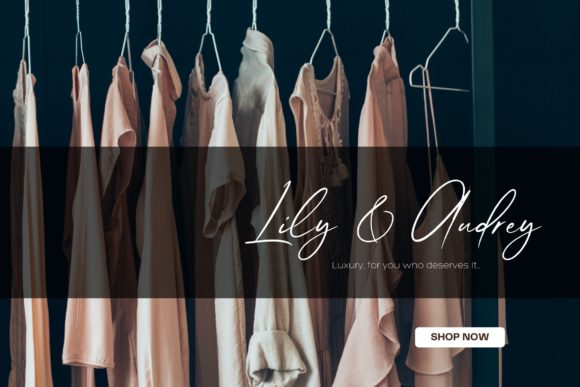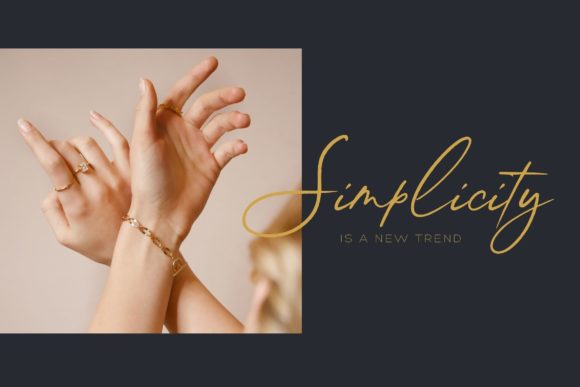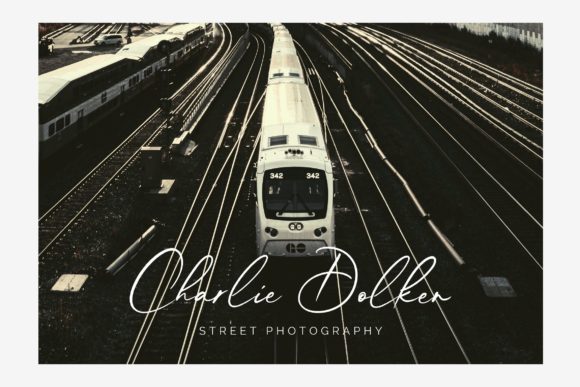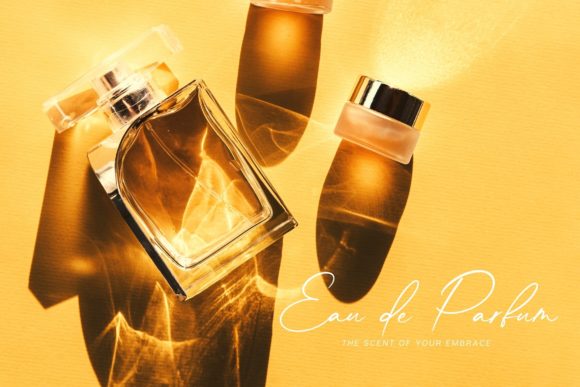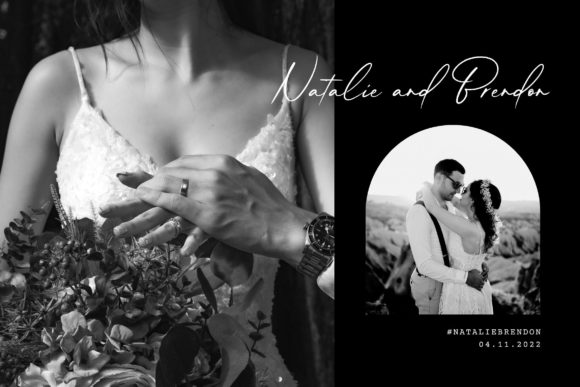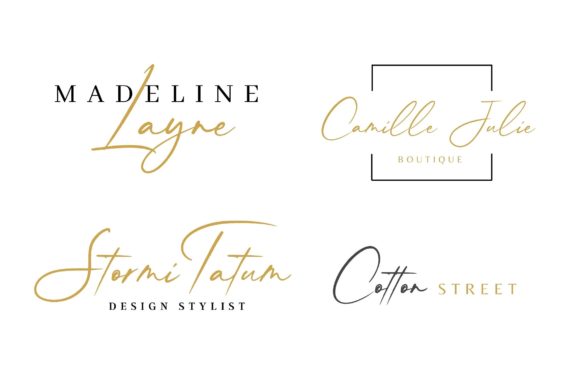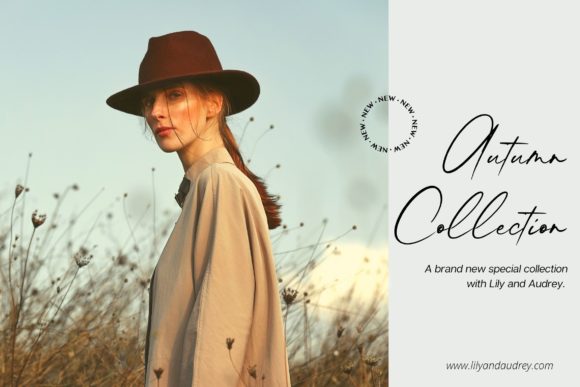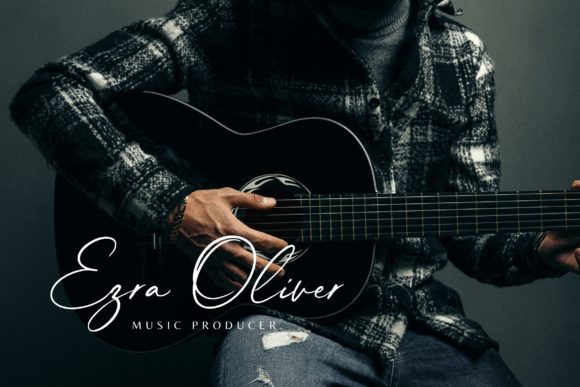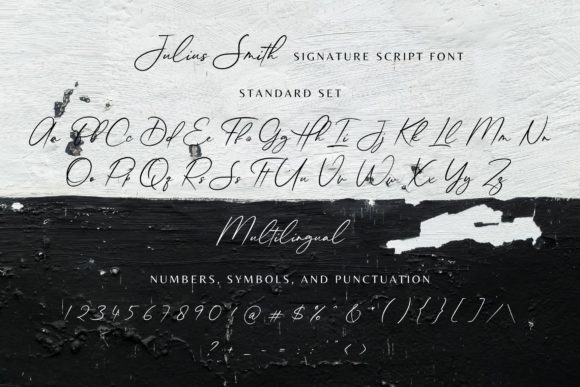
Julius Smith Font
About Julius Smith Font
Julius Smith is a sophisticated script font that boasts a graceful and organic flow, making it an ideal choice for a wide range of creative projects. Its elegant curves and natural strokes lend an air of refinement and uniqueness to any design you embark on.
The font’s stylish appearance is well-suited for a variety of applications, from logotypes that demand attention and leave a lasting impression to printed quotes that evoke emotion and captivate readers. Its versatility shines through when used in invitations, greeting cards, and announcements, where its distinctive charm adds a touch of sophistication.
Julius Smith’s aesthetic appeal extends to product packaging, enhancing the visual appeal of your merchandise with its distinctive and stylish letterforms. Whether it graces the cover of a book, the layout of a magazine, or the design of a web page, Julius Smith seamlessly integrates into the overall composition, lending a sense of elegance and harmony.
The natural flow of Julius Smith’s strokes adds an element of authenticity to your designs, conveying a sense of craftsmanship and individuality. Its timeless and classic appearance makes it well-suited for both contemporary and traditional design contexts, ensuring that it remains a relevant and stylish choice across different eras.
With its versatility and natural flow, Julius Smith adapts effortlessly to various design styles, reflecting your creativity and adding a touch of sophistication to your projects. Its application extends beyond the visual realm, as its distinctive appearance can also evoke emotions, enhance the readability of text, and contribute to the overall atmosphere of your design.
In summary, Julius Smith is a stylish script font that offers a natural and graceful flow, making it perfect for a diverse array of creative projects. Its ability to elevate logotypes, printed quotes, invitations, cards, product packaging, web design, magazines, books, and more ensures that it remains a valuable asset in your design toolkit. With Julius Smith, you have the power to infuse your designs with elegance, charm, and a touch of timeless sophistication.